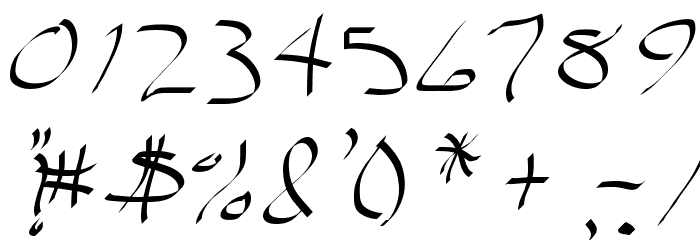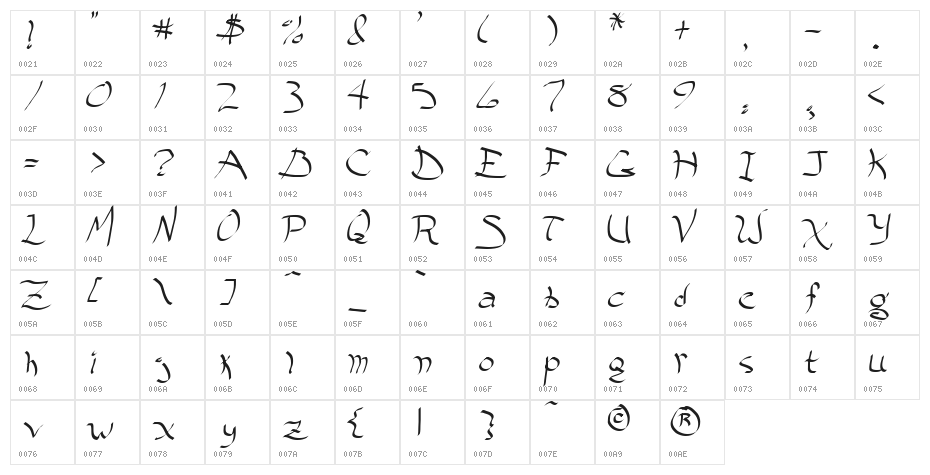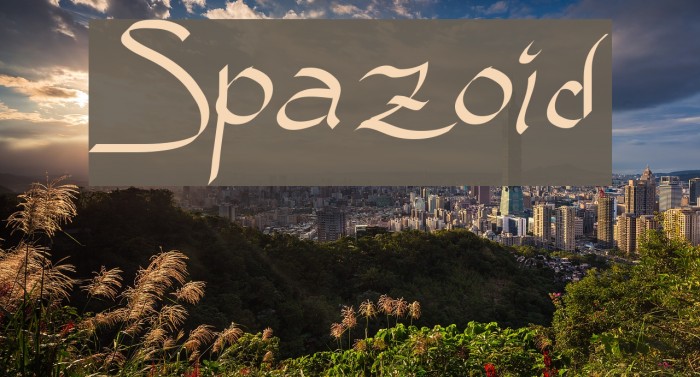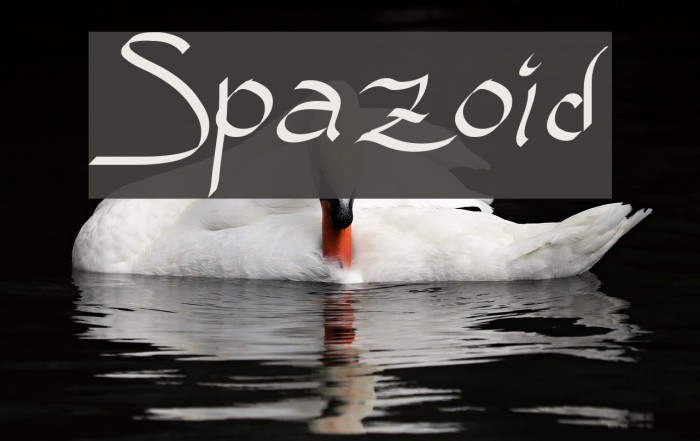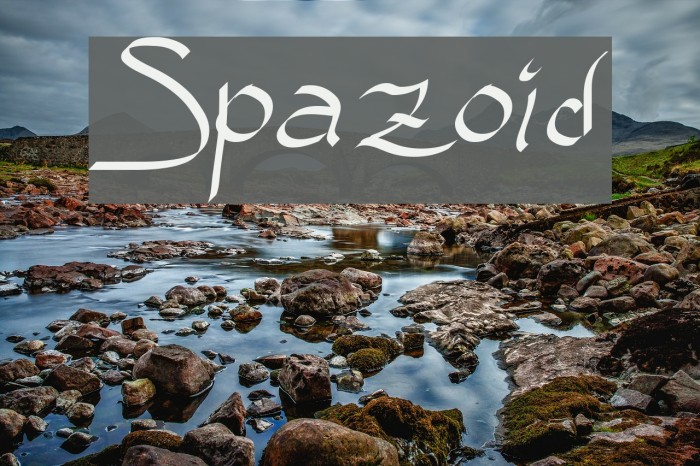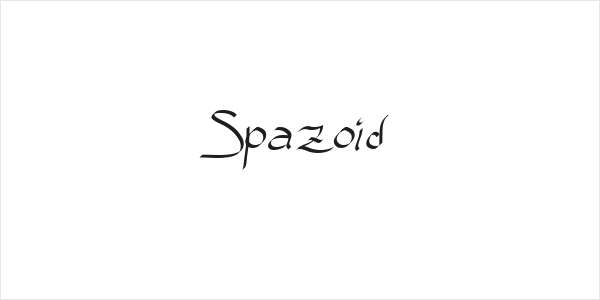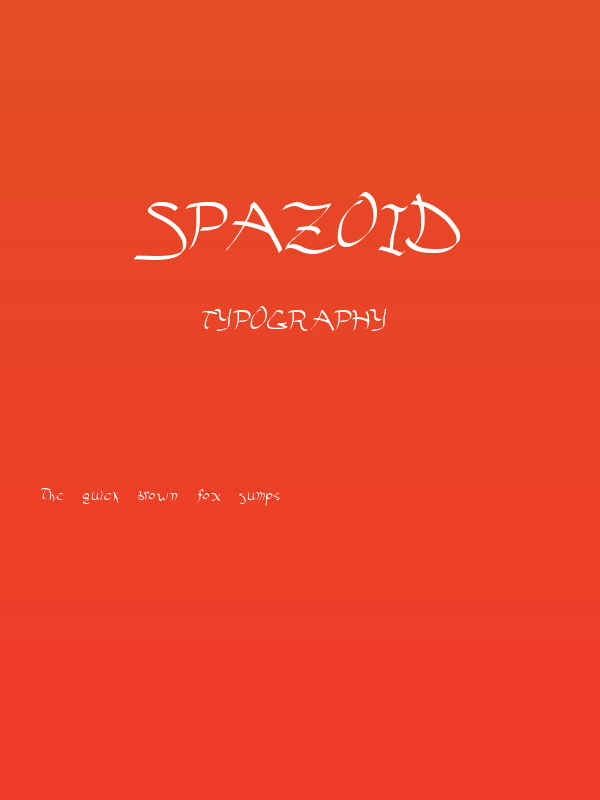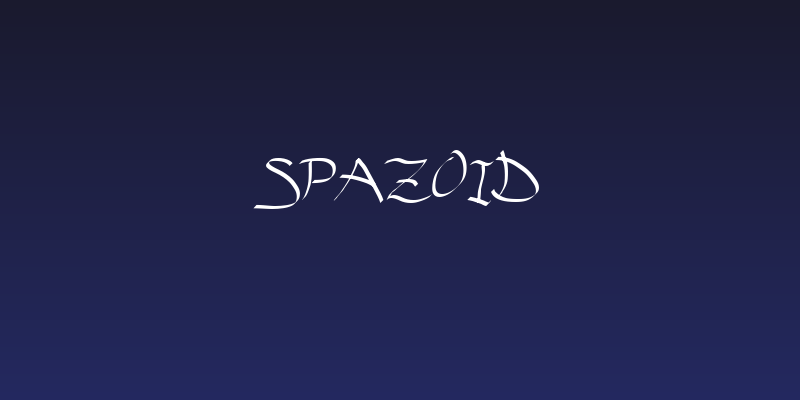
Spazoid Font
Spazoid Description
This font exhibits a dynamic and energetic style, characterized by sharp, angular strokes and a flowing, cursive-like appearance. The uppercase letters are bold and striking, with exaggerated curves and pointed edges that give a sense of movement and flair. The lowercase letters maintain this fluidity, with a slightly more restrained form, yet still retaining the overall dramatic effect. Numbers and special characters follow the same stylistic cues, ensuring consistency across all glyphs. The font's unique design makes it stand out, offering a sense of creativity and expressiveness.
| Proposed Projects | Ideal for creative projects such as album covers, posters, and branding materials that require a bold and expressive typeface. |